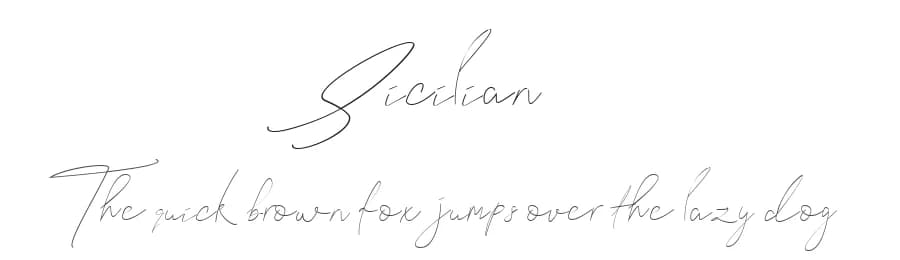
About Sicilian Font
Sicilian is a handwritten script font designed by aulia and released through MC STUDIO. This flowing typeface captures the natural rhythm of pen strokes, making it ideal for projects that call for a personal, organic touch. With 69 glyphs supporting 89+ Latin-based languages, Sicilian works across most Western language contexts without the need for special language files or substitutions.
The font shines in intimate applications: wedding invitation suites where elegance and personality matter equally, greeting cards and thank-you notes that benefit from warmth, social media graphics for personal brands and small businesses, and handwritten-style labeling on DIY packaging or craft projects. Its flowing script character reads well at display sizes, though the regular weight provides enough substance for legibility even in smaller applications where many scripts stumble. The handwritten nature means it works best when authenticity and personality matter more than mechanical precision or mass appeal.
Sicilian Specifications
Sicilian Font is a script font that shines as a display or heading face. Pair it with a clean sans-serif or serif font for body text β the contrast creates a clear hierarchy while the two styles stay balanced and easy to read.
Sicilian Font
by aulia